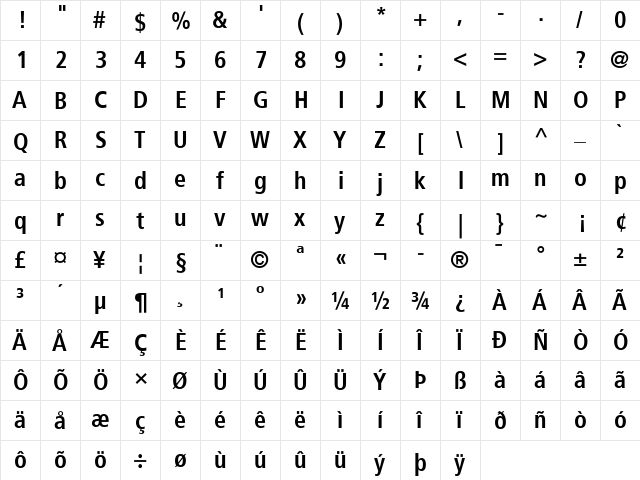
Frutiger 47LightCn Bold Font Preview
Frutiger 47LightCn Bold
Design Context for Frutiger 47LightCn Typeface
Frutiger 47LightCn is a composed and adaptable typeface that performs quietly and consistently across a wide range of design contexts. The heavy weight commands attention and anchors typographic hierarchies.